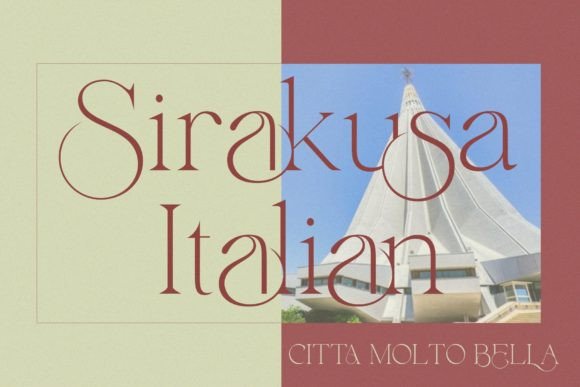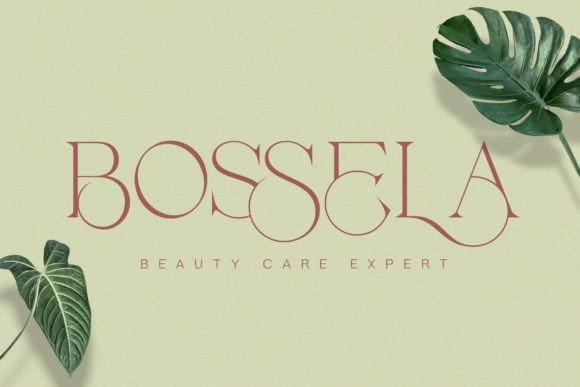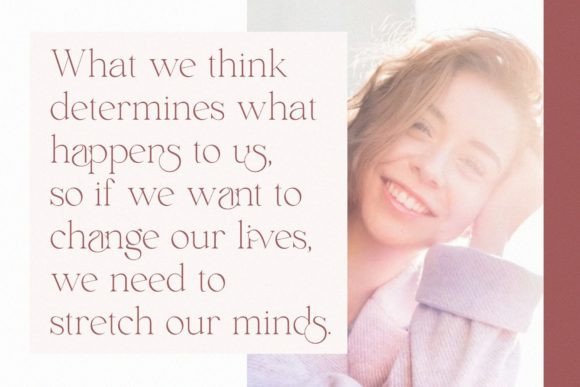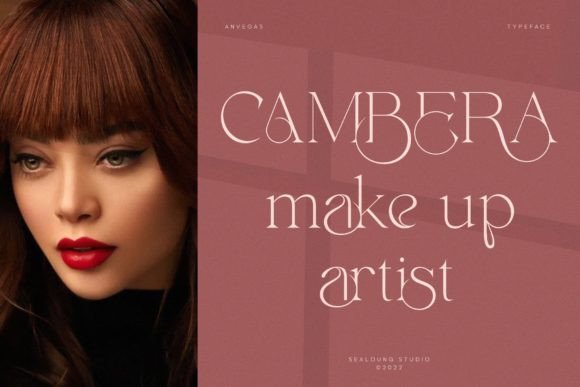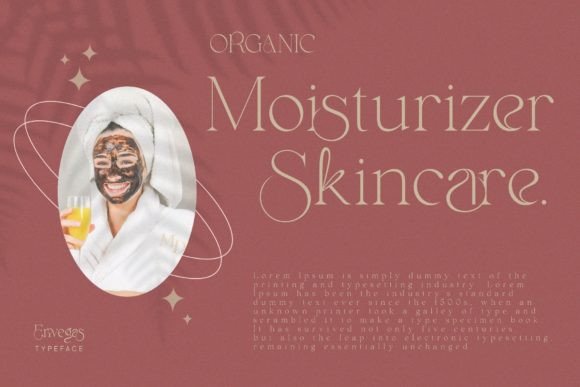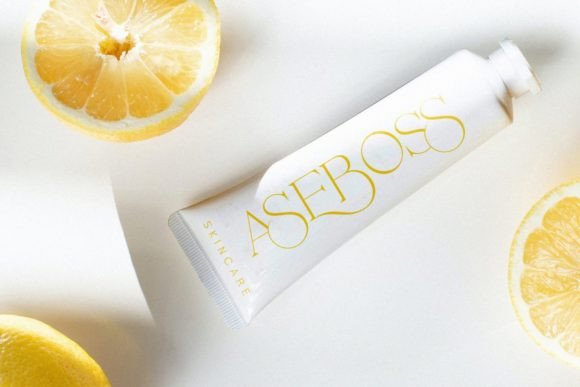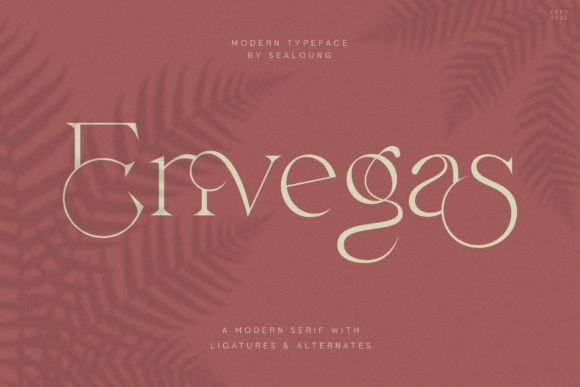
Introducing Envegas Font: Elevate Your Designs with Modern Elegance
Are you a designer or crafter looking for a font that can add a touch of sophistication and modernity to your creative projects? Look no further than Envegas Font, a stunning ligature serif font that is perfect for a wide range of applications. From quotes and body copy to headings, logos, branding, magazines, product packaging, and invitations, Envegas Font is the perfect choice for anyone looking to elevate their designs.
What is Envegas Font?
Envegas Font is a modern ligature serif font that boasts a unique and elegant design. Its sleek lines, beautiful ligatures, and classic serif style make it an excellent choice for designers and crafters who want to add a touch of sophistication to their work. Whether you’re working on a logo, a magazine, or a product packaging project, Envegas Font is sure to make your designs stand out.
Key Features of Envegas Font
So, what makes Envegas Font so special? Here are just a few of its key features:
• Modern ligature serif design: Envegas Font features a beautiful ligature serif design that is both modern and elegant.
• Perfect for quotes and body copy: The font’s clear and readable design makes it perfect for use in quotes and body copy.
• Suitable for headings and logos: Envegas Font’s bold and striking design also makes it perfect for use in headings and logos.
• Great for branding and magazines: The font’s unique and elegant design makes it an excellent choice for branding and magazine projects.
• Product packaging and invitations: Envegas Font is also perfect for use in product packaging and invitations, adding a touch of sophistication and elegance to any project.
Why Choose Envegas Font?
So, why should you choose Envegas Font for your next design project? Here are just a few reasons:
• Unique and elegant design: Envegas Font features a unique and elegant design that is sure to make your designs stand out.
• Versatile: The font is perfect for use in a wide range of applications, from quotes and body copy to headings, logos, and more.
• Easy to read: Envegas Font’s clear and readable design makes it easy to read, even in small sizes.
• Adds a touch of sophistication: The font’s elegant design adds a touch of sophistication to any project, making it perfect for designers and crafters who want to create high-end designs.
How to Use Envegas Font
Using Envegas Font in your design projects is easy. Here are just a few tips:
• Use it for quotes and body copy: Envegas Font is perfect for use in quotes and body copy, adding a touch of elegance and sophistication to your text.
• Pair it with other fonts: The font pairs well with other fonts, making it easy to create unique and interesting typography.
• Experiment with different sizes: Envegas Font looks great in a wide range of sizes, from small body copy to large headings.
• Use it for branding and logos: The font’s bold and striking design makes it perfect for use in branding and logos.
In conclusion, Envegas Font is a stunning ligature serif font that is perfect for designers and crafters who want to add a touch of sophistication and modernity to their creative projects. With its unique and elegant design, versatility, and ease of use, Envegas Font is sure to become a favorite in your font collection. So why wait? Add Envegas Font to your favorite creative projects today and notice how it makes them come alive!